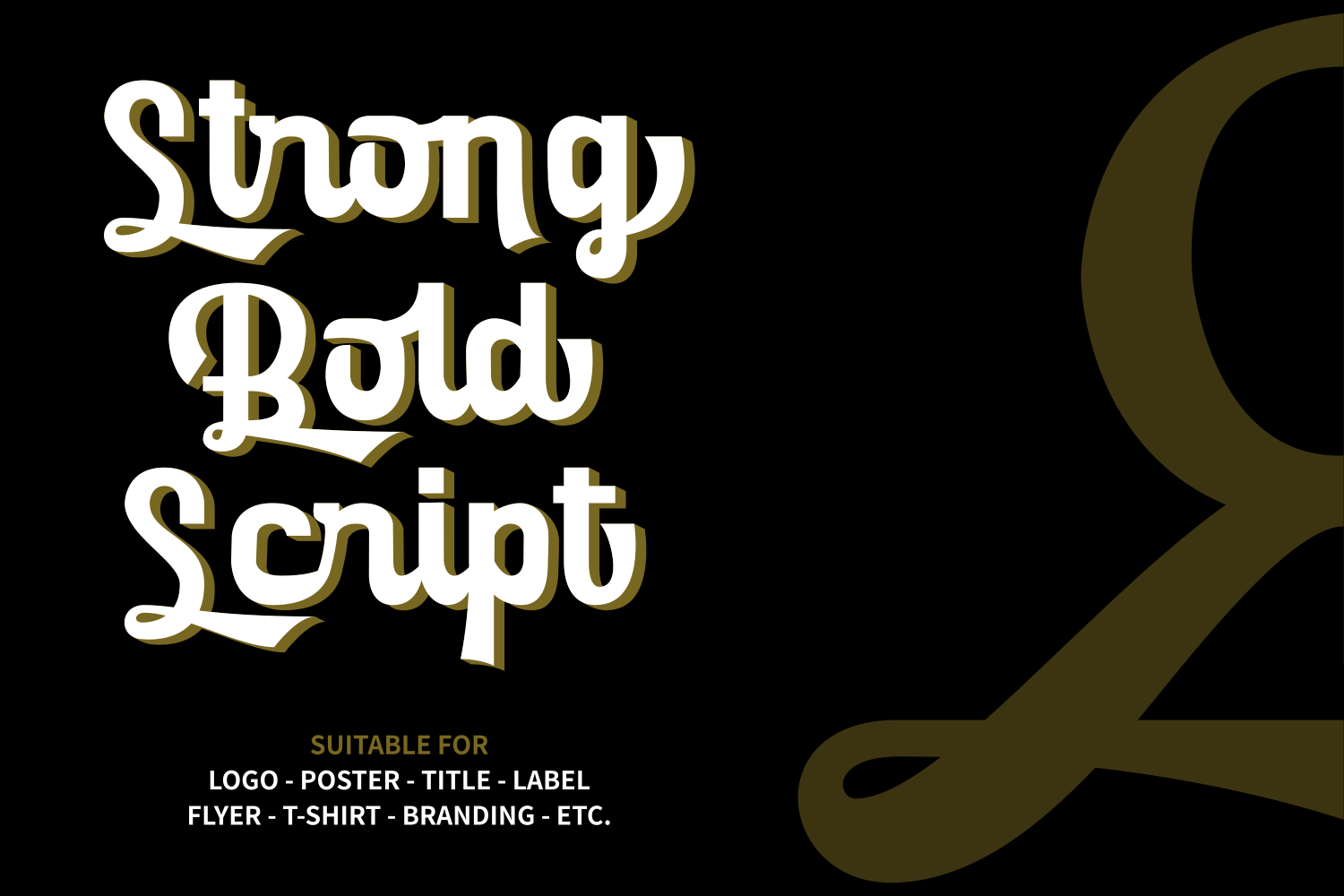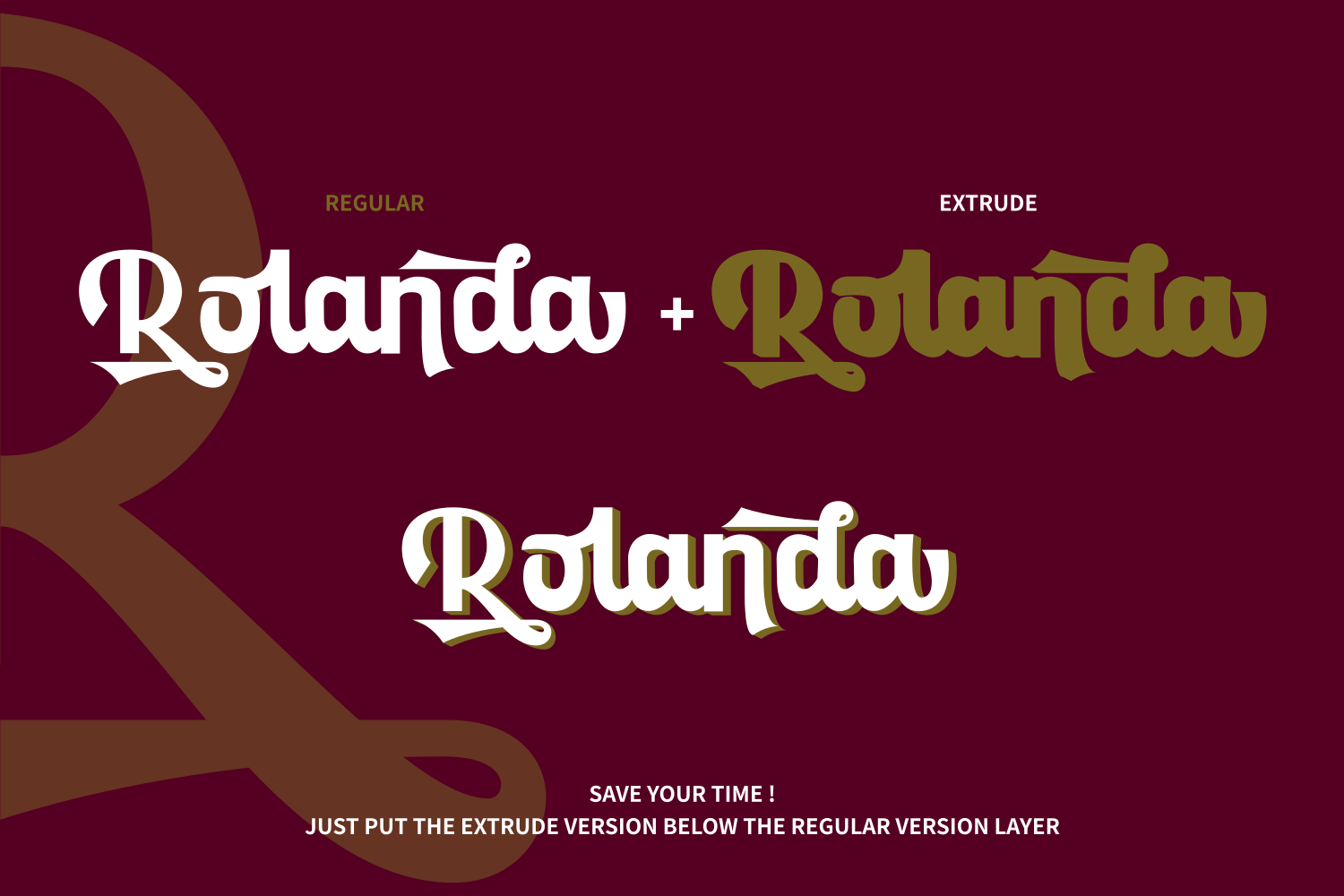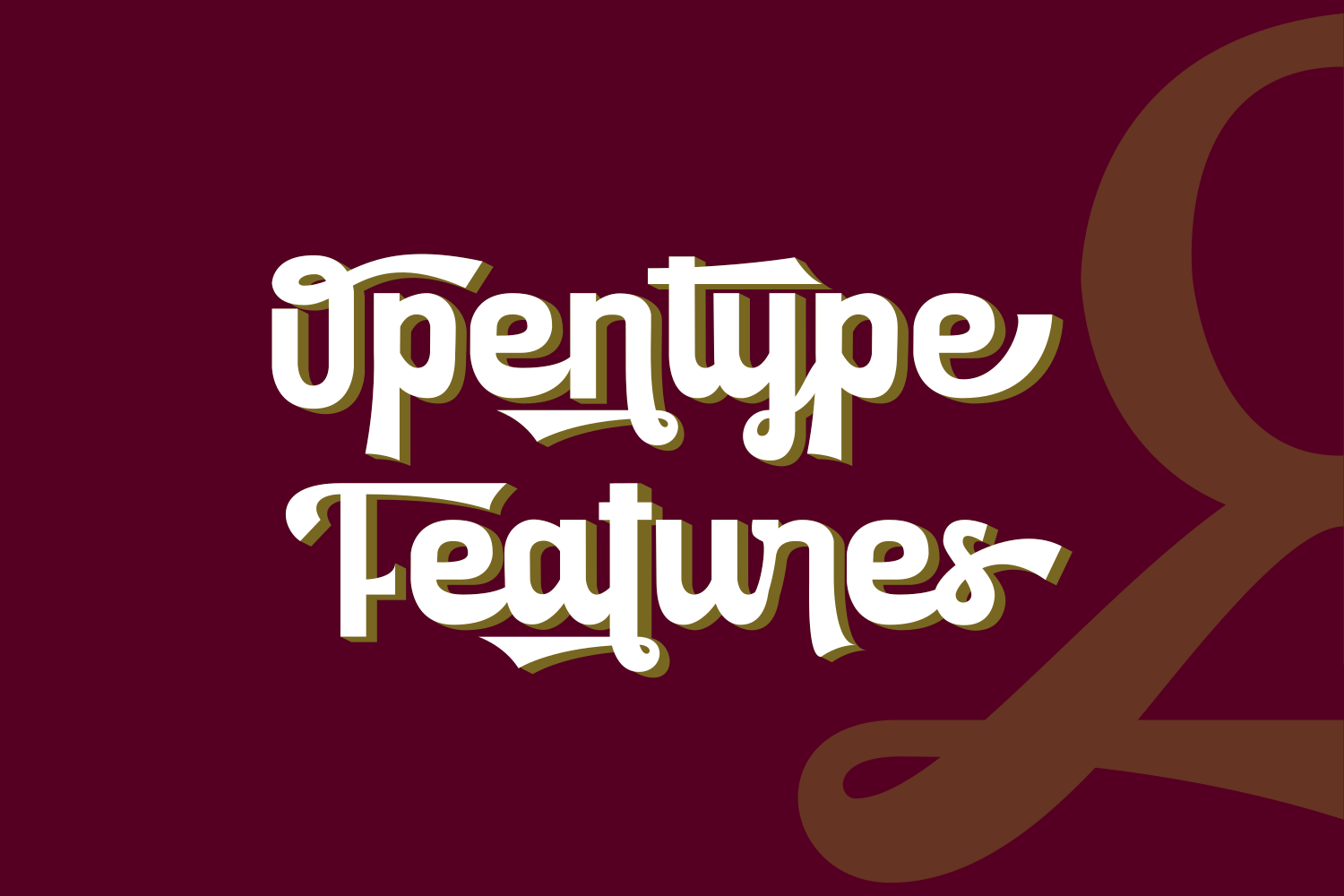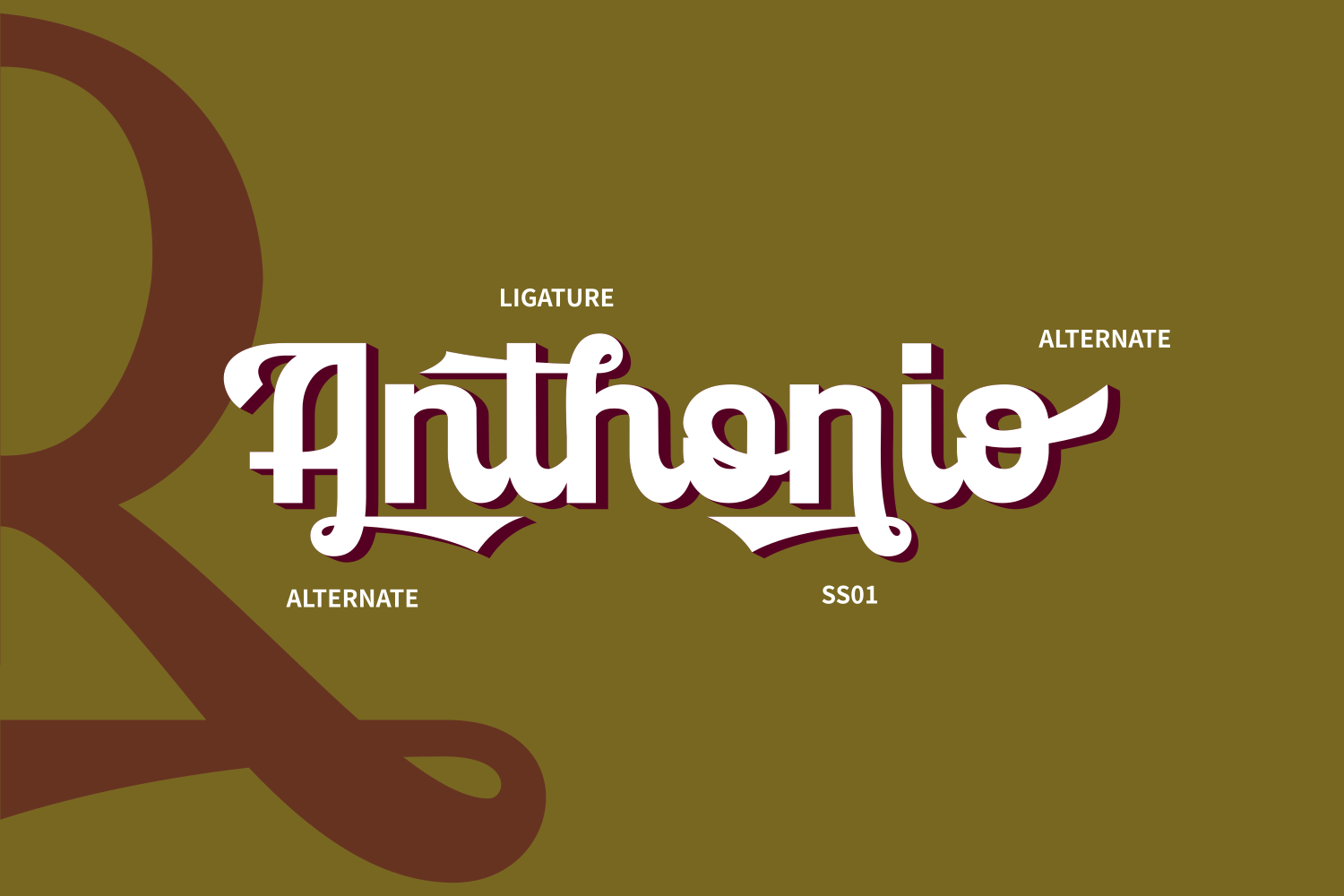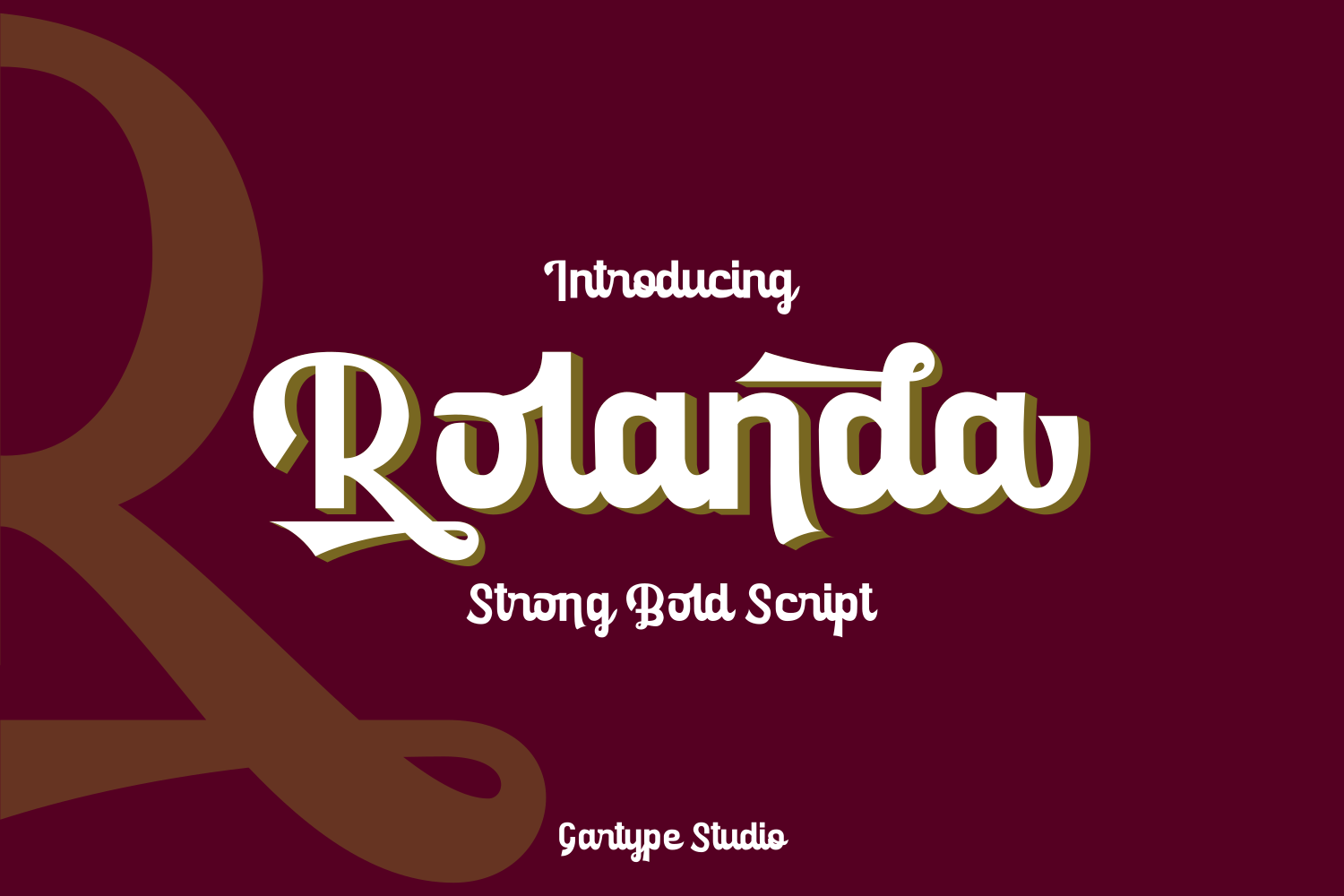
Rolanda Script Font
Rolanda is a combination of Strong,Bold,and Script font.Inspired by Vintage typeface.Rolanda is a good choice to finish your great project! like making a logo,label,branding,flyer,title,poster,t-shirt and many more.
Rolanda also has multilingual features,and
support many language :
Afrikaans,
Albanian,Danish,Dutch,German,Icelandic,Italian,Norwegian,Portugese,Spanisch,Swedish,Zulu.